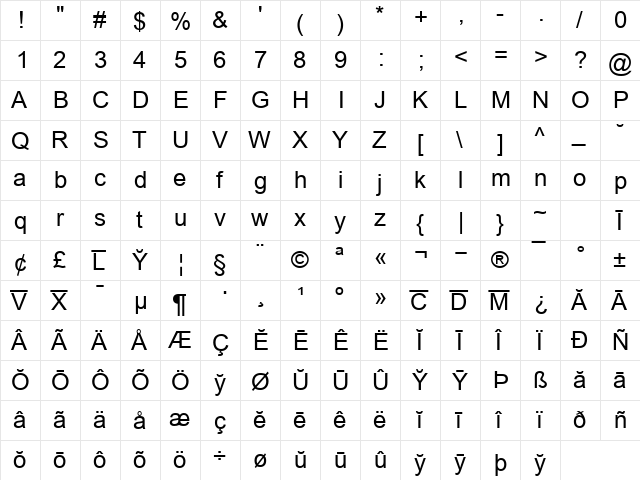
LatinArial Regular
Design Context for LatinArial Typeface
LatinArial offers clean, dependable letterforms without strong stylistic allegiance, making it a practical choice for designers who need flexibility.
Pro Tip: Use LatinArial in both headline and body roles to test its range before committing to a single application.